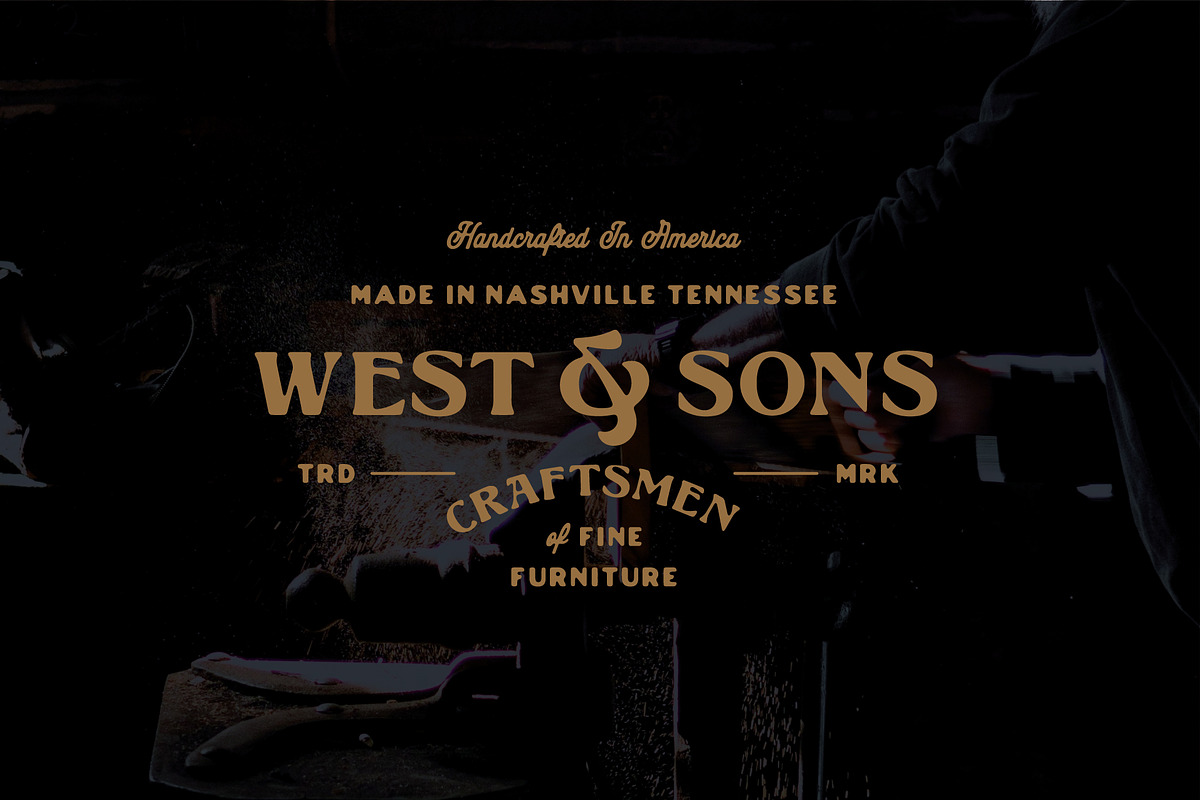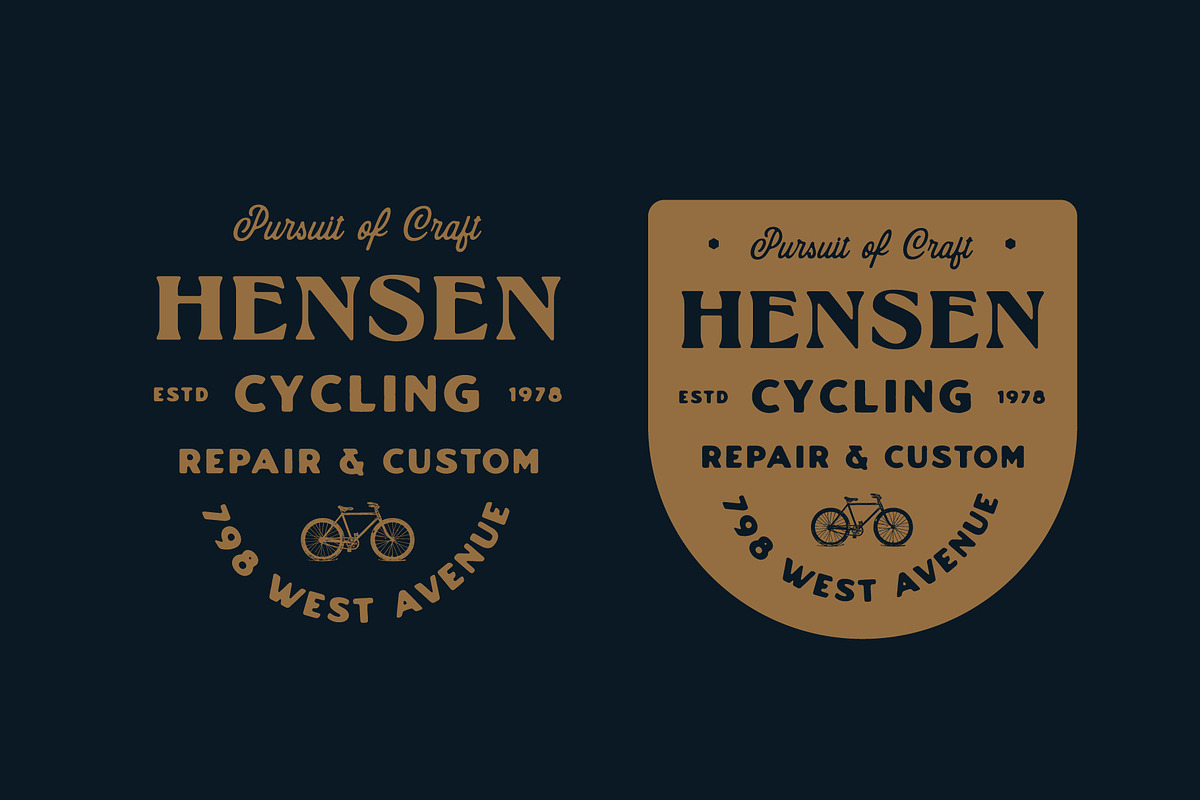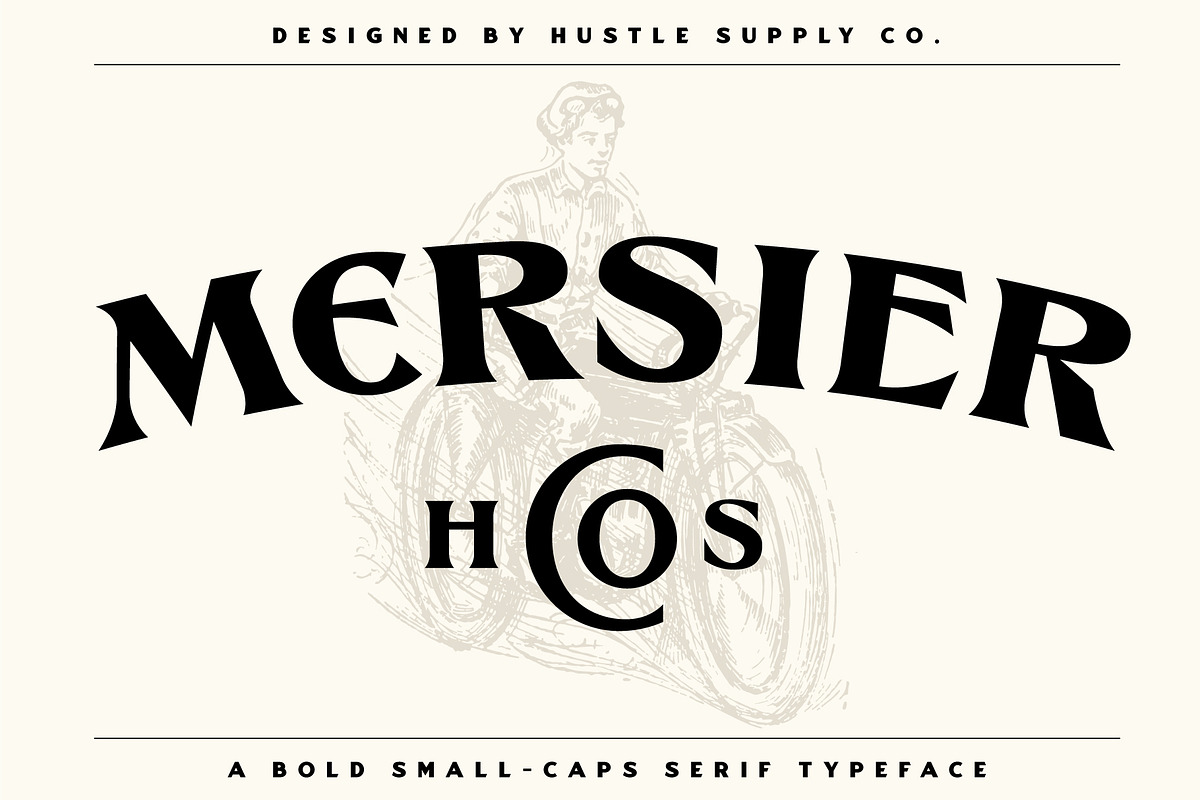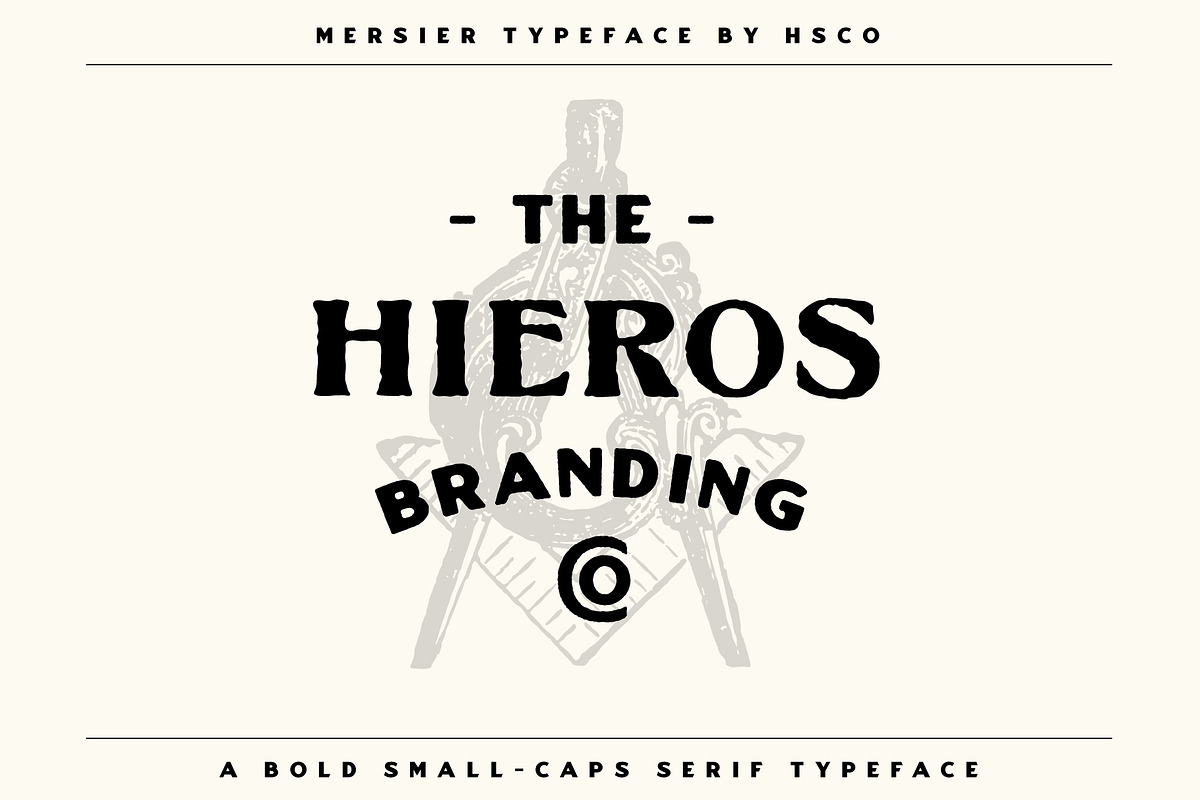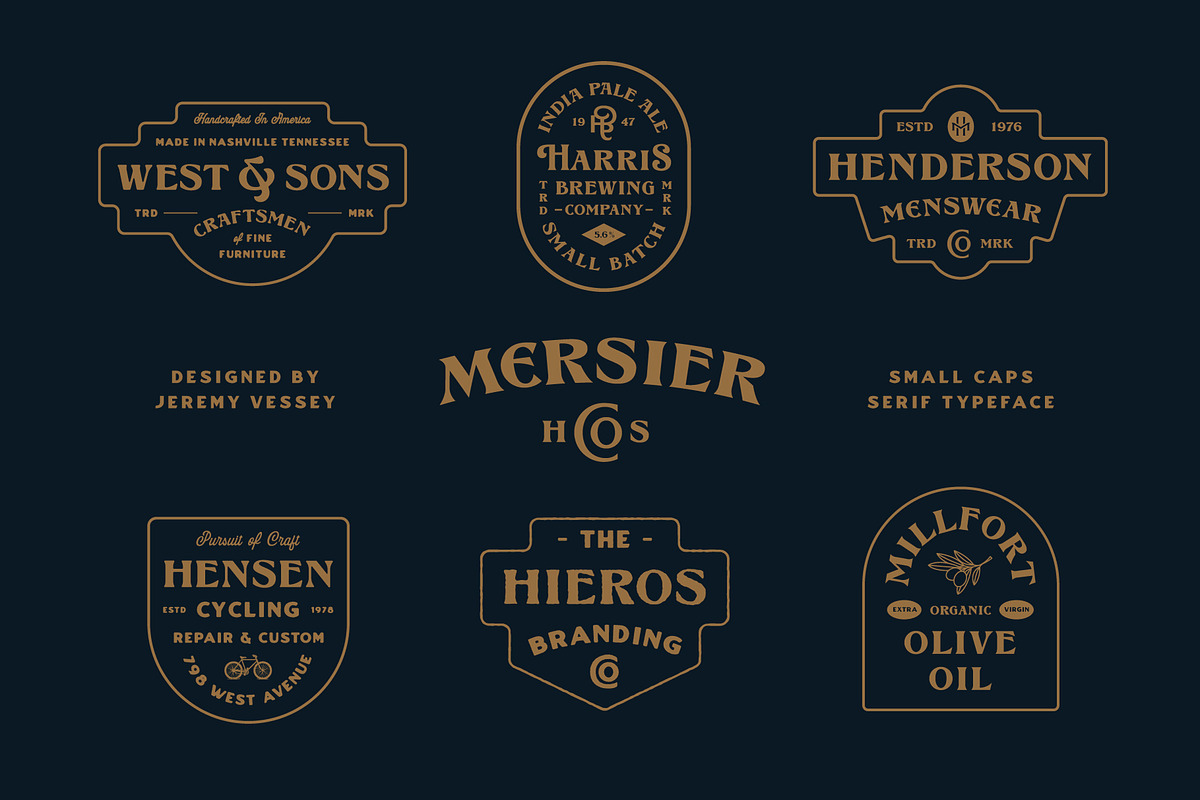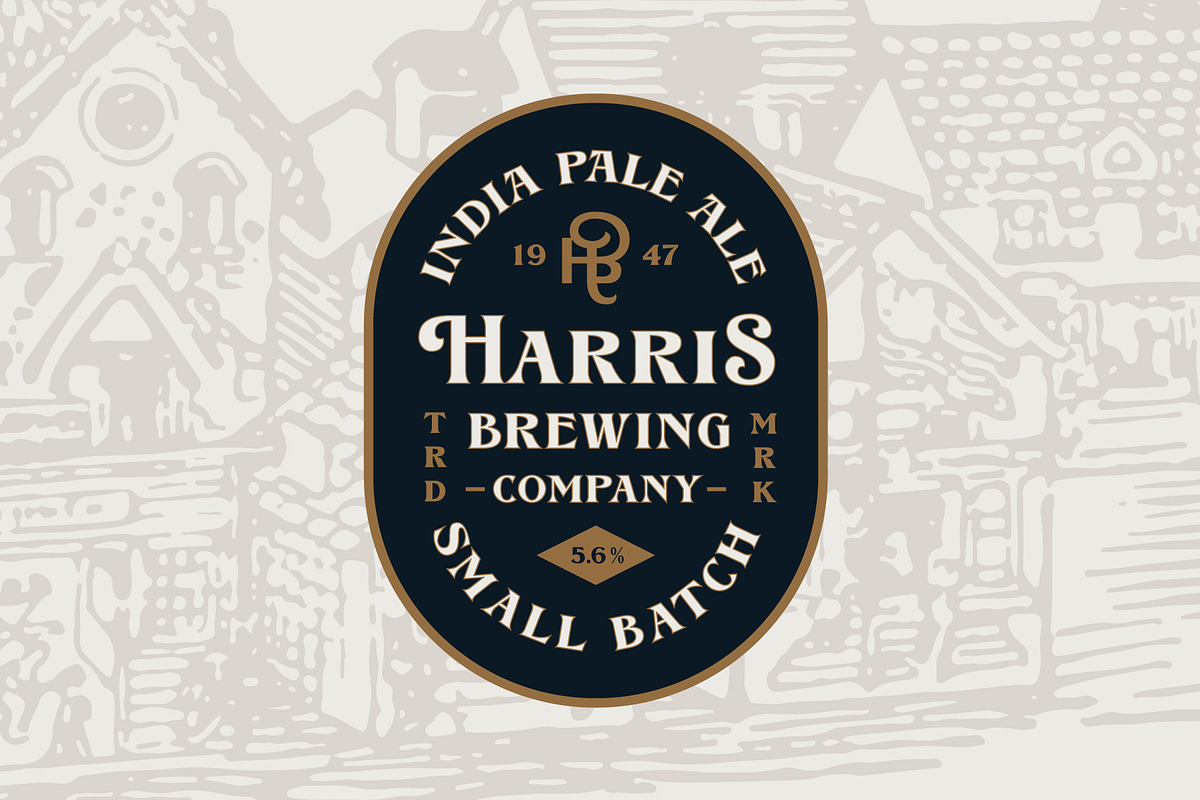
Mersier
Introducing Mersier
Mersier is a small-cap serif display typeface that includes decorative uppercase letters with versatile small-caps, allowing for a variety of aesthetics. Mersier comes with various ligatures & alternate characters.